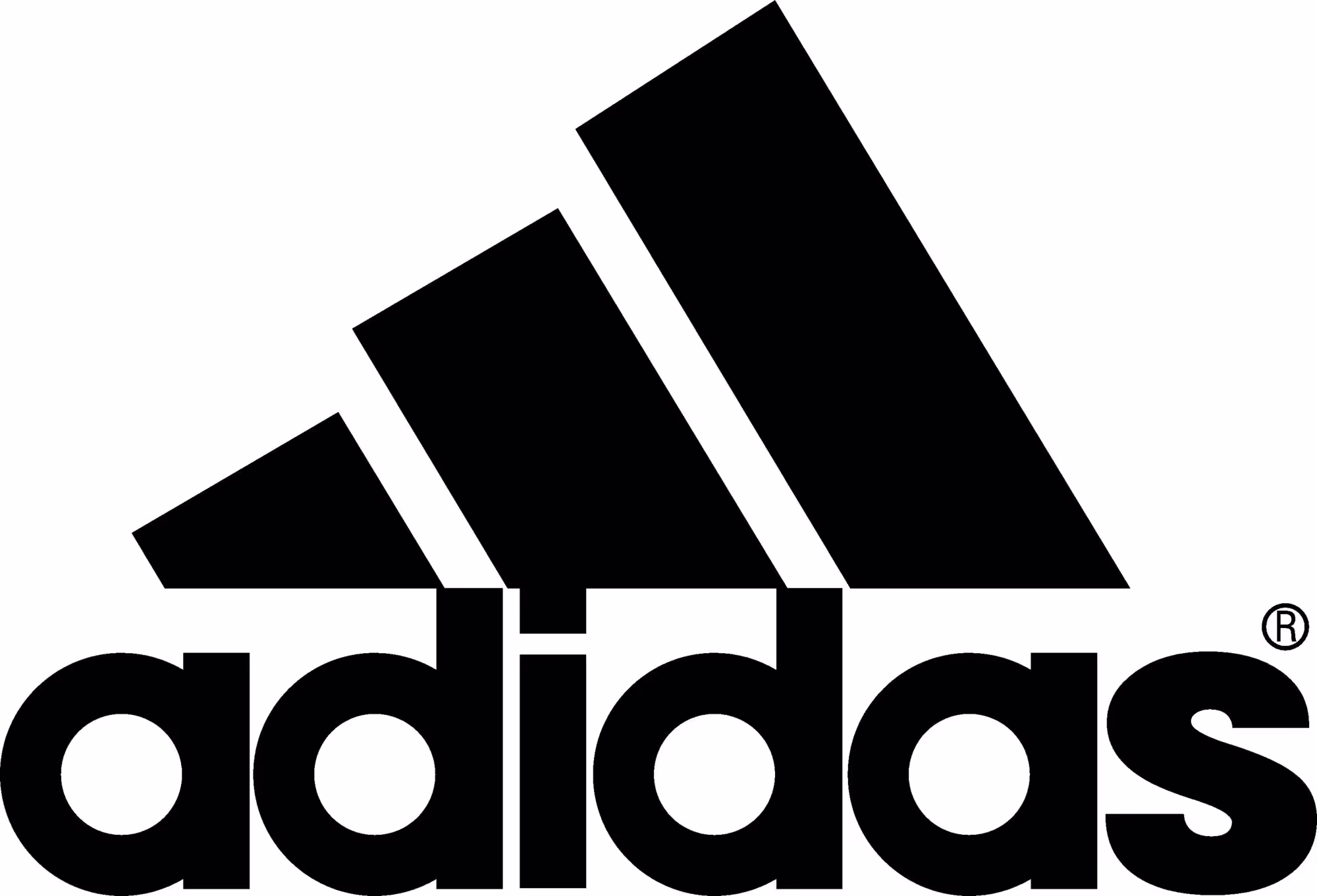
Adidas Font
ITC Avant Garde
ModifiedThis font is used in "Adidas Font" brand, but it was modified
The Adidas logo font is ITC Avant Garde Gothic. Adidas AG is a multinational corporation headquartered in Herzogenaurach, Germany, that designs and manufactures shoes, clothing, and accessories. It is the largest sportswear manufacturer in Europe and the second largest in the world after Nike. The Adidas logo font, ITC Avant Garde Gothic, is a geometric sans serif typeface known for its circular letterforms and clean structure. The bold, modern typography reinforces performance, innovation, and strong brand recognition across global sportswear markets.